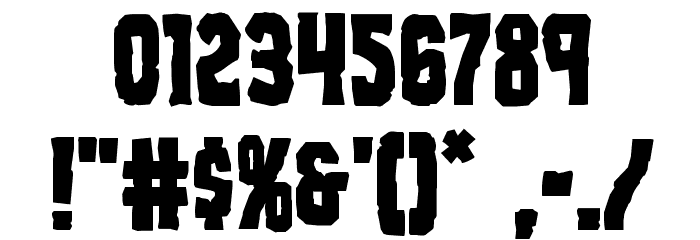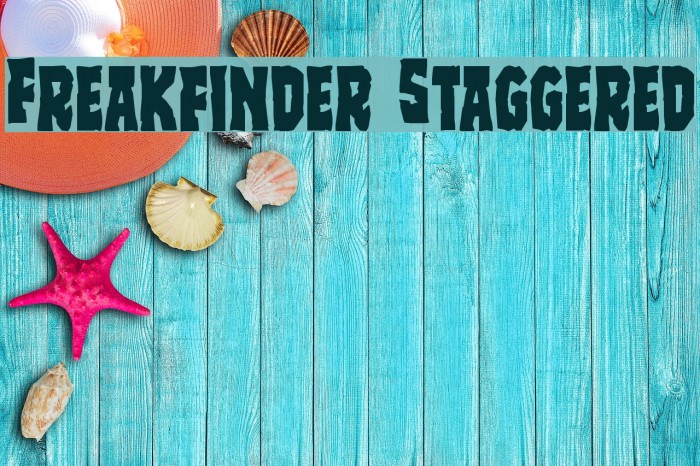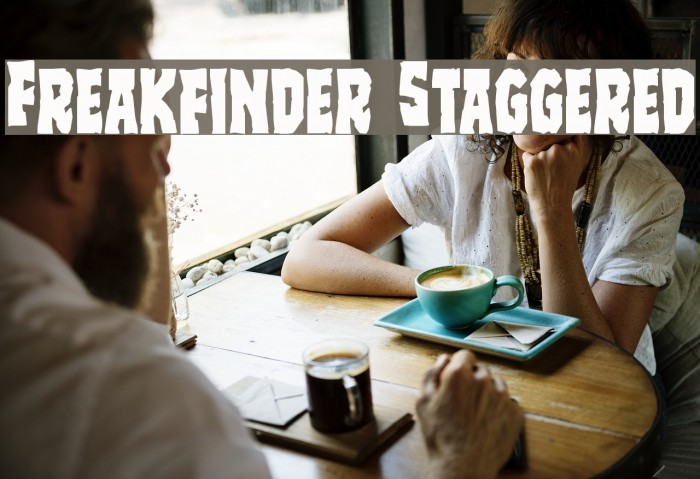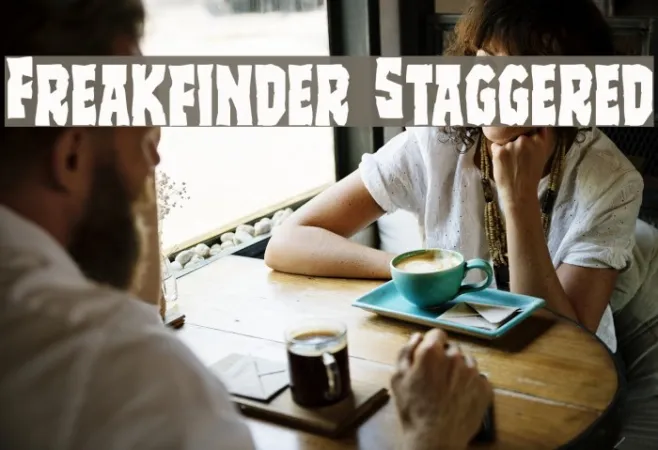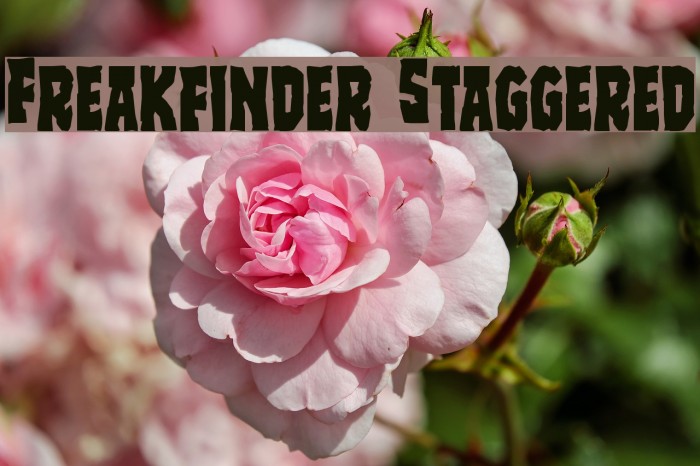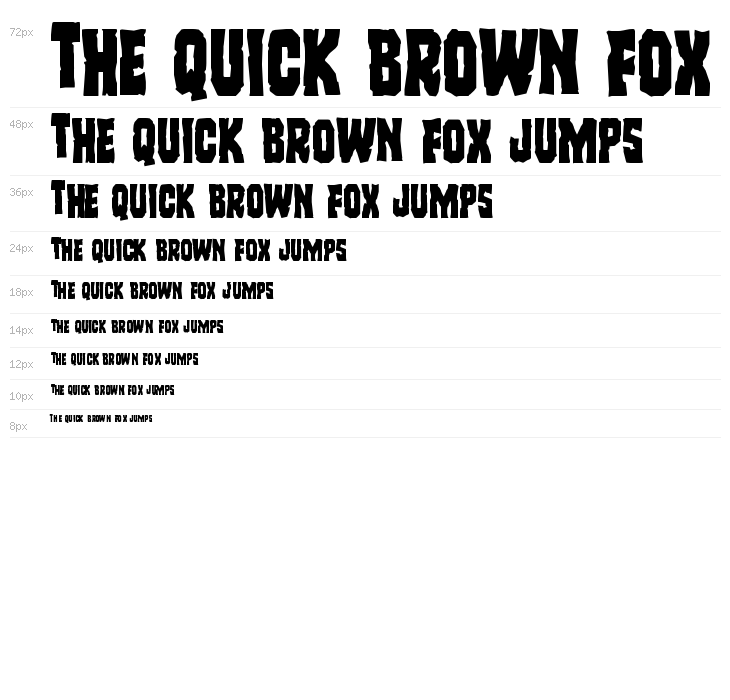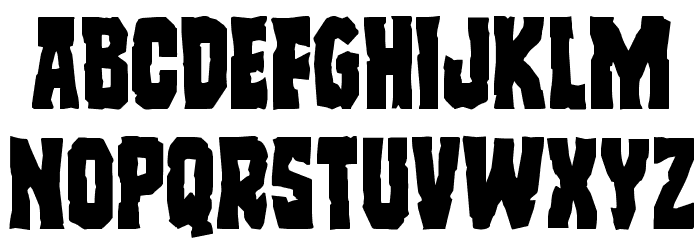
Freakfinder Staggered Font
Freakfinder Staggered Description
This font features a bold and rugged design with a distinctly jagged and uneven appearance. The characters are heavily stylized, giving them a rough, hand-chiseled look that evokes a sense of raw energy and dynamism. The uppercase and lowercase letters maintain a consistent weight, while the numbers and special characters follow the same bold and irregular style. The font's unique aesthetic makes it stand out, making it ideal for projects that require a strong visual impact.
| Proposed Projects | Ideal for horror-themed posters, edgy branding, album covers, and any project needing a bold, impactful typeface. |